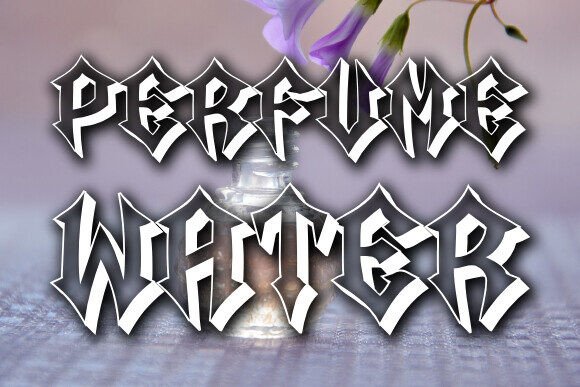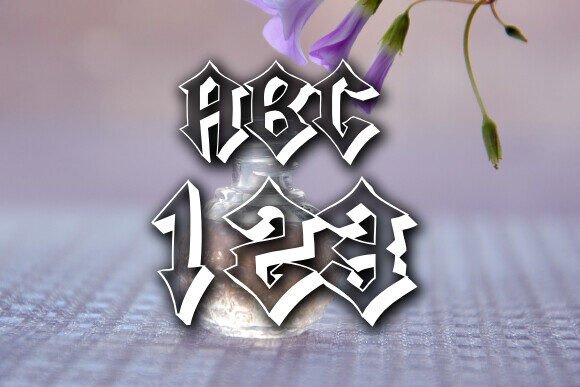
Unleash the Bold, Edgy Elegance of Cologne: A Striking Blackletter Font
In the world of typography, few fonts evoke the same level of power and sophistication as Cologne. This striking blackletter font seamlessly blends traditional gothic aesthetics with a modern twist, making it the perfect choice for designers and crafters looking to add a sharp, artistic flair to their creations. Whether you’re working on branding, album covers, tattoos, logos, or dramatic design projects, Cologne is sure to make a lasting impression.
A Perfect Blend of Tradition and Modernity
Cologne’s design is rooted in the rich tradition of blackletter typography, with its intricate details and bold, sweeping lines. However, this font also boasts a modern edge, setting it apart from more traditional gothic fonts. The result is a unique and captivating aesthetic that is both timeless and contemporary. With Cologne, you can add a touch of classic elegance to your designs while still standing out in a crowded creative landscape.
One of the key benefits of Cologne is its versatility. This font can be used in a wide range of creative projects, from bold branding and logos to eye-catching album covers and tattoos. Its commanding presence and intricate details make it perfect for designers looking to add a touch of drama and sophistication to their work. Whether you’re creating a logo for a new business or designing a striking tattoo, Cologne is sure to help you achieve your creative vision.
Key Features of Cologne
- Striking blackletter design: Cologne’s bold, sweeping lines and intricate details make it a standout font that’s sure to grab attention.
- Traditional gothic aesthetics: With its roots in traditional blackletter typography, Cologne boasts a timeless elegance that’s perfect for designs that require a touch of classic sophistication.
- Modern twist: Cologne’s modern edge sets it apart from more traditional gothic fonts, making it perfect for designers looking to create unique and eye-catching designs.
- Highly versatile: From branding and logos to album covers and tattoos, Cologne can be used in a wide range of creative projects.
Tips for Using Cologne in Your Designs
To get the most out of Cologne, here are a few tips to keep in mind:
- Use it as a statement piece: Cologne’s bold design makes it perfect for use as a statement piece in your designs. Try using it as a headline or title font to grab attention and draw the eye.
- Experiment with different colors: Cologne looks great in a wide range of colors, from bold and bright to more muted and subtle. Experiment with different colors to find the perfect look for your design.
- Pair it with contrasting fonts: To create a striking contrast, try pairing Cologne with a more minimalist or sans-serif font. This will help to create a visually interesting design that’s sure to stand out.
In conclusion, Cologne is a striking blackletter font that’s perfect for designers and crafters looking to add a touch of power and sophistication to their creations. With its unique blend of traditional gothic aesthetics and modern twist, this font is sure to make a lasting impression. Whether you’re working on branding, album covers, tattoos, logos, or dramatic design projects, Cologne is the perfect choice. So why wait? Unleash the bold, edgy elegance of Cologne today and take your designs to the next level.